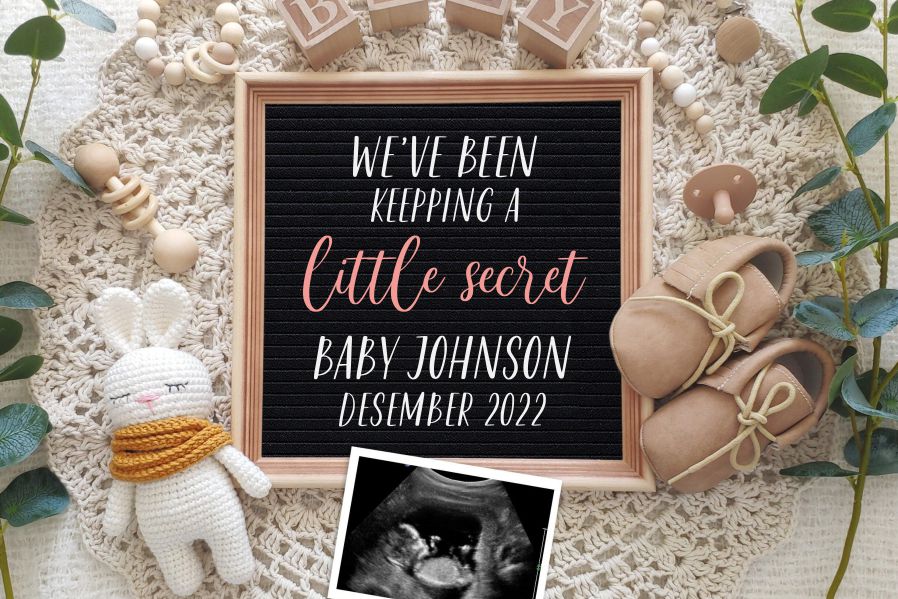
Lullapeach Font
Lullapeach Display Font is a Handwritten Quirky font. Lullapeach is perfect for product packaging, branding project, megazine, social media, wedding, or just used to express words above the background.